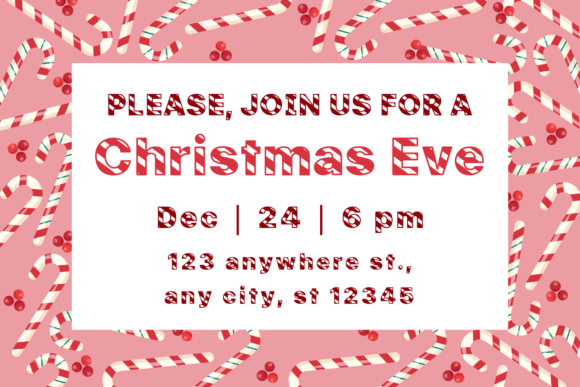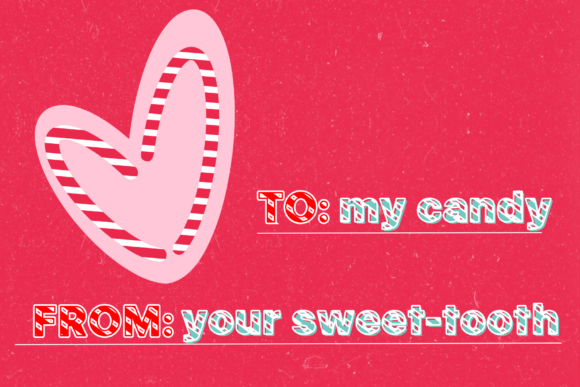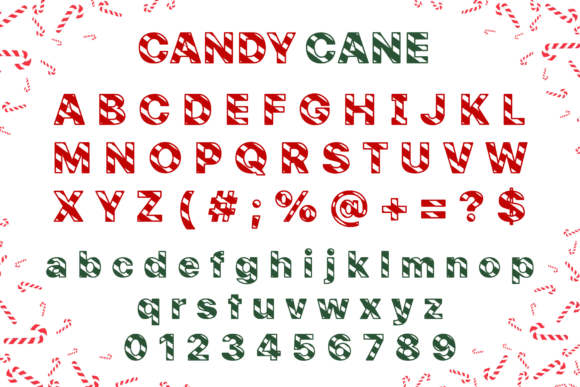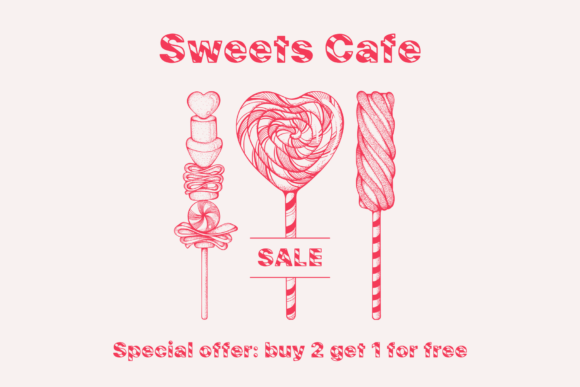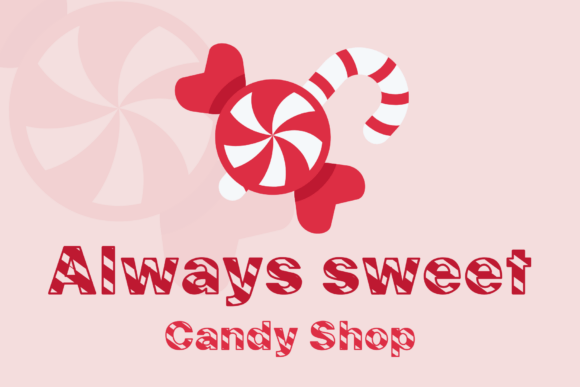
Candy Cane Font: Add a Sweet Holiday Touch to Your Designs
Are you looking for a festive and fun font to add a holiday touch to your designs? Look no further than the Candy Cane Font! This bold and playful display font is inspired by the iconic Christmas candy cane pattern, bringing cheerful holiday energy to any project.
What is Candy Cane Font?
Candy Cane is a bold and playful display font that features a striped cutout design and festive shapes, reminiscent of the classic Christmas candy cane. Its unique design makes it perfect for adding a touch of holiday cheer to any project, from Christmas cards and gift tags to party invitations and social media posts.
Features of Candy Cane Font
- Bold and Playful Design: The Candy Cane Font features a bold and playful design that is sure to grab attention.
- Striped Cutout Design: The font’s striped cutout design gives it a unique and festive look.
- Festive Shapes: The font features festive shapes that add to its holiday cheer.
- Easy to Read: Despite its bold design, the Candy Cane Font is easy to read, making it perfect for use in a variety of projects.
Uses for Candy Cane Font
The Candy Cane Font is perfect for a variety of projects, including:
- Christmas Cards: Add a touch of holiday cheer to your Christmas cards with the Candy Cane Font.
- Gift Tags: Use the Candy Cane Font to create festive gift tags that are sure to impress.
- Party Invitations: Create fun and festive party invitations with the Candy Cane Font.
- Stickers: Use the Candy Cane Font to create fun and festive stickers for your holiday crafts.
- Winter-Themed Branding: Add a touch of holiday cheer to your winter-themed branding with the Candy Cane Font.
- Craft Projects: Use the Candy Cane Font to add a touch of holiday cheer to your craft projects, such as holiday-themed scrapbooking and DIY decorations.
- Social Media Posts: Add a touch of holiday cheer to your social media posts with the Candy Cane Font.
Why Choose Candy Cane Font?
There are many reasons to choose the Candy Cane Font for your holiday designs, including:
- Unique Design: The Candy Cane Font features a unique design that is sure to stand out.
- Versatile: The Candy Cane Font is versatile and can be used in a variety of projects, from Christmas cards to social media posts.
- Fun and Festive: The Candy Cane Font is fun and festive, making it perfect for adding a touch of holiday cheer to your designs.
Tips for Using Candy Cane Font
Here are a few tips for using the Candy Cane Font in your designs:
- Use it Sparingly: While the Candy Cane Font is fun and festive, it can be overwhelming if used too much. Use it sparingly to add a touch of holiday cheer to your designs.
- Pair it with Other Fonts: The Candy Cane Font pairs well with other fonts, such as serif and sans-serif fonts. Experiment with different font combinations to find the perfect look for your design.
- Experiment with Colors: The Candy Cane Font looks great in a variety of colors, including red, green, and white. Experiment with different colors to find the perfect look for your design.
The Candy Cane Font is a fun and festive font that is perfect for adding a touch of holiday cheer to your designs. With its unique design, ease of use, and versatility, it’s a great choice for designers and crafters alike. Whether you’re creating Christmas cards, gift tags, or social media posts, the Candy Cane Font is sure to bring a smile to your face and a touch of holiday magic to your designs.